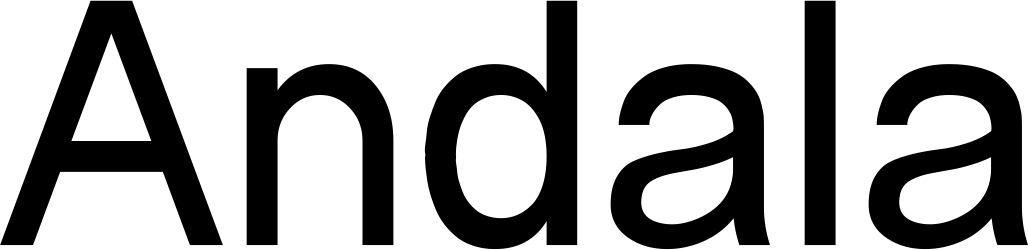
Andala Font
By features of this simple font, including small and large characters and numbers, you can create any elegant themes, and you do not need to check other fonts. Andala font is one of the sans serif fonts with a clean styl…
By features of this simple font, including small and large characters and numbers, you can create any elegant themes, and you do not need to check other fonts.
Andala font is one of the sans serif fonts with a clean style. This font helps you organize the best newspaper and newsletter columns with four diverse types.